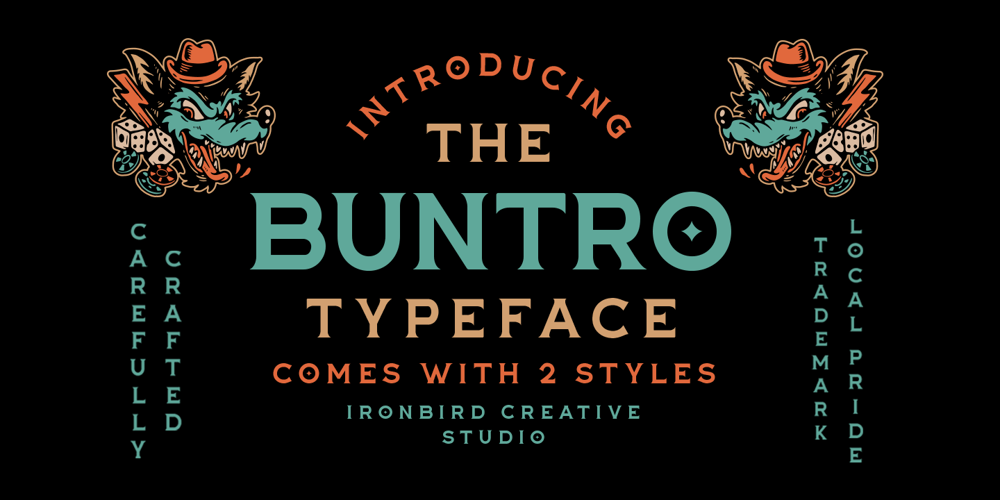
The Buntro Font Family was designed by Septianto Nugroho and published by Ironbird Creative. The Buntro contains 2 styles and family package options. The Buntro is a Display Typeface designed with carefully crafted. Comes with 2 Styles, Regular and Outline. This is a simple yet refined All-Caps Typeface. Also suitable for Branding & Packaging, Poster Design, T-shirt, Tattoo Design, Logotype, and any project. Support multilingual, number and symbol, alternates, and already PUA Encoded.What’s inculded? The Buntro Regular The Buntro Outline Multilingual Support many different languages. Included AÀÁÂÃÄÅCÇDÐEÈÉÊËIÌÍÎÏNÑOØÒÓÔÕÖUÙÜÚÛWYÝiŸỲŸÆŒßÞþWe hope you enjoy the font, please feel free to comment if you have any thoughts or feedback.